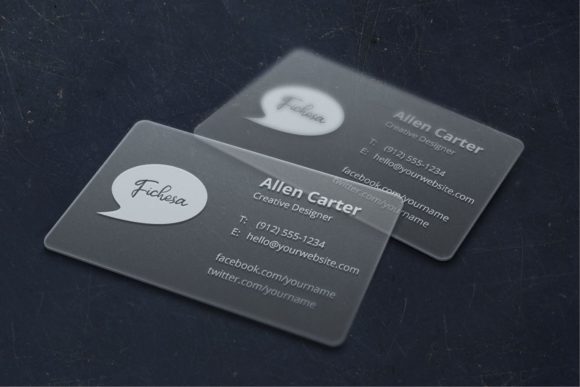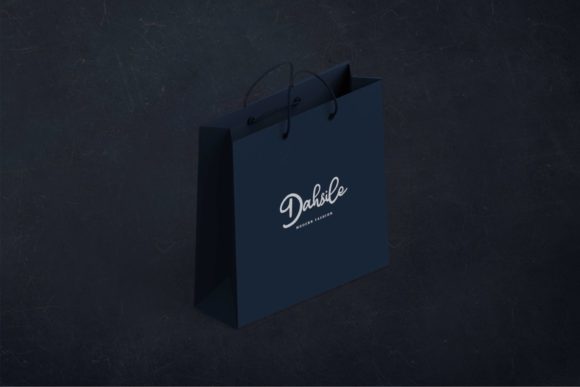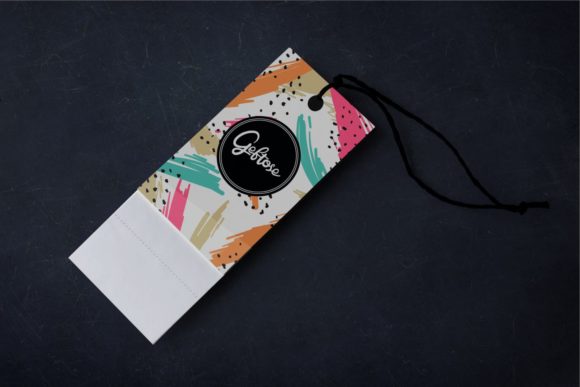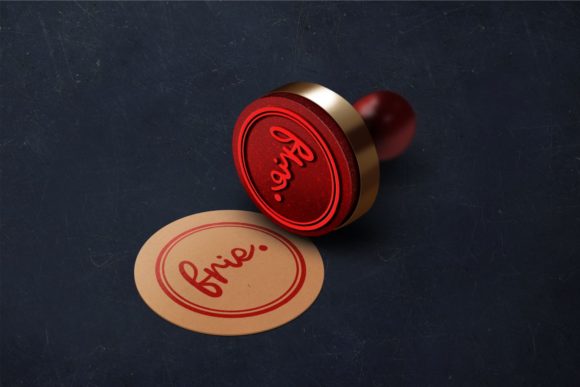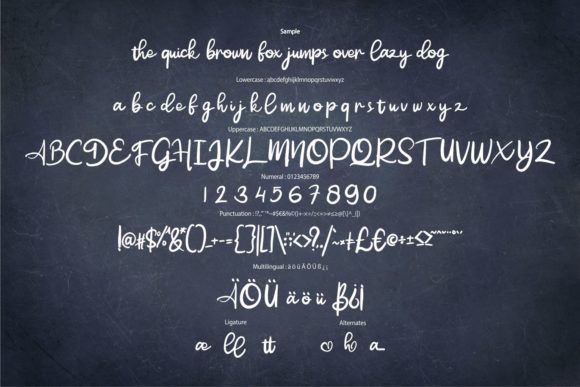
Discover the Unique Charm of Ahifel Font: Elevate Your Designs to New Heights
Are you tired of using the same old fonts in your designs? Look no further than Ahifel Font, an incredibly unique script font that is sure to become a true favorite in your collection. Masterfully designed to bring each of your creative ideas to the highest level, Ahifel Font is the perfect choice for designers and crafters looking to add a touch of elegance and sophistication to their work.
What Makes Ahifel Font So Special?
Ahifel Font is a true standout in the world of typography. Its unique script design is both elegant and playful, making it perfect for a wide range of design applications. Whether you’re working on a logo, a branding project, or a craft project, Ahifel Font is sure to bring a touch of personality and style to your work.
One of the things that sets Ahifel Font apart is its incredible versatility. This font can be used in a variety of contexts, from formal and professional to casual and whimsical. Its smooth, flowing lines and carefully crafted letterforms make it perfect for use in:
- Signs and posters
- Craft projects and DIY tutorials
- Digital graphics and social media posts
The Design Behind Ahifel Font
Ahifel Font was designed with the goal of creating a truly unique and special script font. The designer carefully crafted each letterform to ensure that it was both beautiful and functional. The result is a font that is not only visually stunning but also highly legible and easy to use.
One of the key features of Ahifel Font is its beautiful swashes and flourishes. These elegant touches add a touch of sophistication and glamour to any design, making it perfect for use in high-end branding and marketing materials.
Why Choose Ahifel Font?
There are many reasons why Ahifel Font is an excellent choice for designers and crafters. Here are just a few:
- Unique and distinctive design: Ahifel Font is unlike any other script font on the market. Its unique design ensures that your work will stand out from the crowd and grab attention.
- Highly versatile: Ahifel Font can be used in a wide range of contexts, from formal to casual.
- Elegant and sophisticated: Ahifel Font is perfect for use in high-end branding and marketing materials.
- Easy to use: Ahifel Font is highly legible and easy to use, making it perfect for designers of all skill levels.
Tips for Using Ahifel Font
Here are a few tips for getting the most out of Ahifel Font:
- Use it sparingly: Ahifel Font is a bold and eye-catching font, so use it sparingly to avoid overwhelming your design.
- Experiment with different colors and textures: Ahifel Font looks great in a variety of colors and textures, so don’t be afraid to experiment and find the perfect combination for your design.
- Pair it with other fonts: Ahifel Font pairs well with a variety of other fonts, so try pairing it with a bold sans-serif font for a striking contrast.
Ahifel Font is an incredibly unique and special script font that is sure to become a true favorite in your collection. Its elegant and sophisticated design makes it perfect for use in a wide range of design applications, from logos and branding materials to craft projects and digital graphics. With its high level of versatility, ease of use, and beautiful swashes and flourishes, Ahifel Font is an excellent choice for designers and crafters looking to elevate their work to new heights.